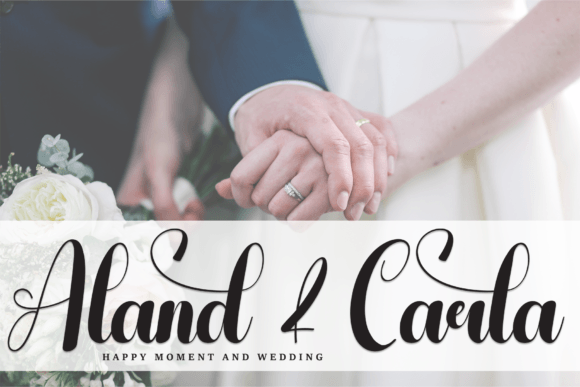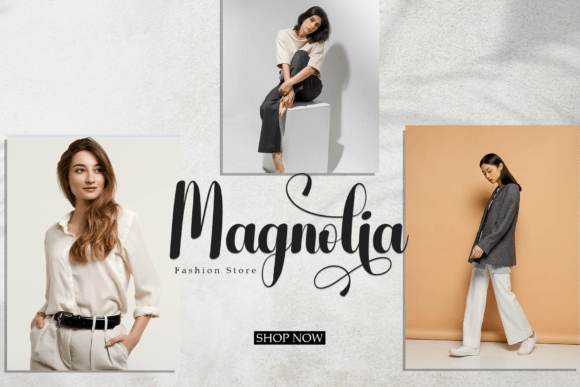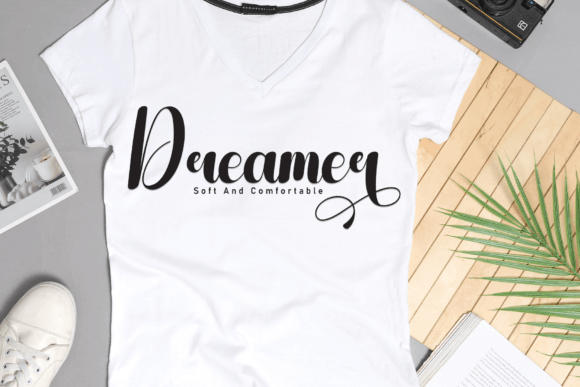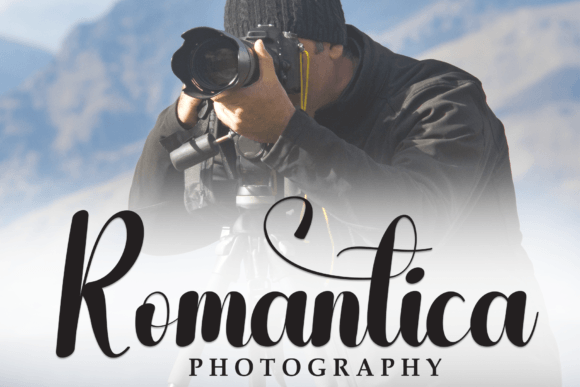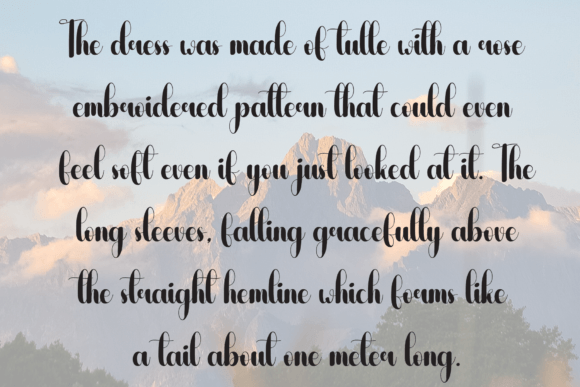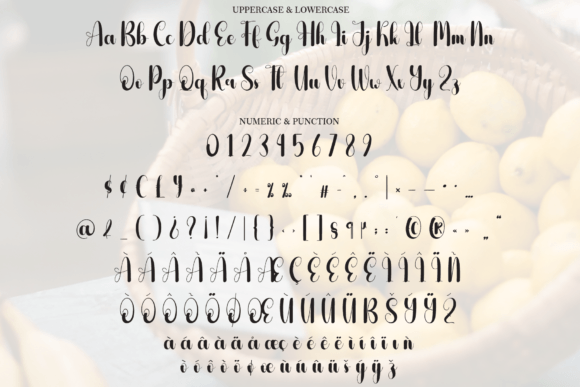
Gandaria Font: The Sweet and Friendly Handwritten Font for Your Designs
Gandaria Font is a beautiful, sweet, and friendly handwritten font that has captured the hearts of designers and crafters alike. Its fresh and casual vibe makes it an ideal choice for adding a lovely touch to various designs, from wedding invitations and cards to branding and packaging. In this article, we’ll dive into the world of Gandaria Font, exploring its features, uses, and benefits, as well as provide tips on how to make the most of this gorgeous font.
What is Gandaria Font?
Gandaria Font is a type of handwritten font that exudes warmth, friendliness, and approachability. Its unique, cursive style is characterized by flowing lines, gentle curves, and a carefree spirit. This font is perfect for designers who want to add a personal touch to their work, creating a sense of connection with their audience.
Key Features of Gandaria Font
- Sweet and Friendly: Gandaria Font is designed to be sweet and friendly, making it perfect for designs that require a personal and approachable tone.
- Handwritten Style: The font’s handwritten style gives it a unique, human touch that sets it apart from more formal fonts.
- Fresh and Casual: Gandaria Font has a fresh and casual vibe, making it ideal for designs that require a relaxed and informal tone.
- Highly Versatile: This font is highly versatile and can be used for a wide range of designs, from wedding invitations and cards to branding and packaging.
Uses of Gandaria Font
Gandaria Font is an incredibly versatile font that can be used for various design projects. Here are some of the most popular uses of this beautiful font:
- Wedding Invitations: Gandaria Font is perfect for wedding invitations, adding a touch of romance and elegance to your designs.
- Cards and Stationery: This font is ideal for creating beautiful cards and stationery, including birthday cards, thank-you cards, and more.
- Branding and Packaging: Gandaria Font can be used for branding and packaging designs, adding a personal touch to your products and services.
- Social Media Graphics: This font is also great for creating social media graphics, including Facebook posts, Instagram stories, and more.
Benefits of Using Gandaria Font
Using Gandaria Font in your designs comes with numerous benefits. Here are some of the advantages of choosing this beautiful font:
- Unique and Eye-Catching: Gandaria Font is a unique and eye-catching font that will set your designs apart from the rest.
- Emotional Connection: This font helps create an emotional connection with your audience, making your designs more relatable and engaging.
- Easy to Read: Gandaria Font is easy to read, even in small sizes, making it perfect for designs that require a lot of text.
- Customizable: This font is highly customizable, allowing you to adjust its size, color, and style to fit your design needs.
Tips for Using Gandaria Font
To make the most of Gandaria Font, here are some tips to keep in mind:
- Pair it with Other Fonts: Pair Gandaria Font with other fonts to create a unique and visually appealing design.
- Use it for Headings and Titles: Use Gandaria Font for headings and titles to add a touch of elegance and sophistication to your designs.
- Keep it Simple: Keep your design simple and clean to let the font shine.
Gandaria Font is a beautiful, sweet, and friendly handwritten font that’s perfect for adding a lovely touch to your designs. Its fresh and casual vibe makes it ideal for wedding invitations, cards, branding, and packaging. With its unique features, versatility, and benefits, Gandaria Font is a must-have for designers and crafters. By following the tips outlined in this article, you’ll be able to make the most of this gorgeous font and create stunning designs that capture the hearts of your audience.